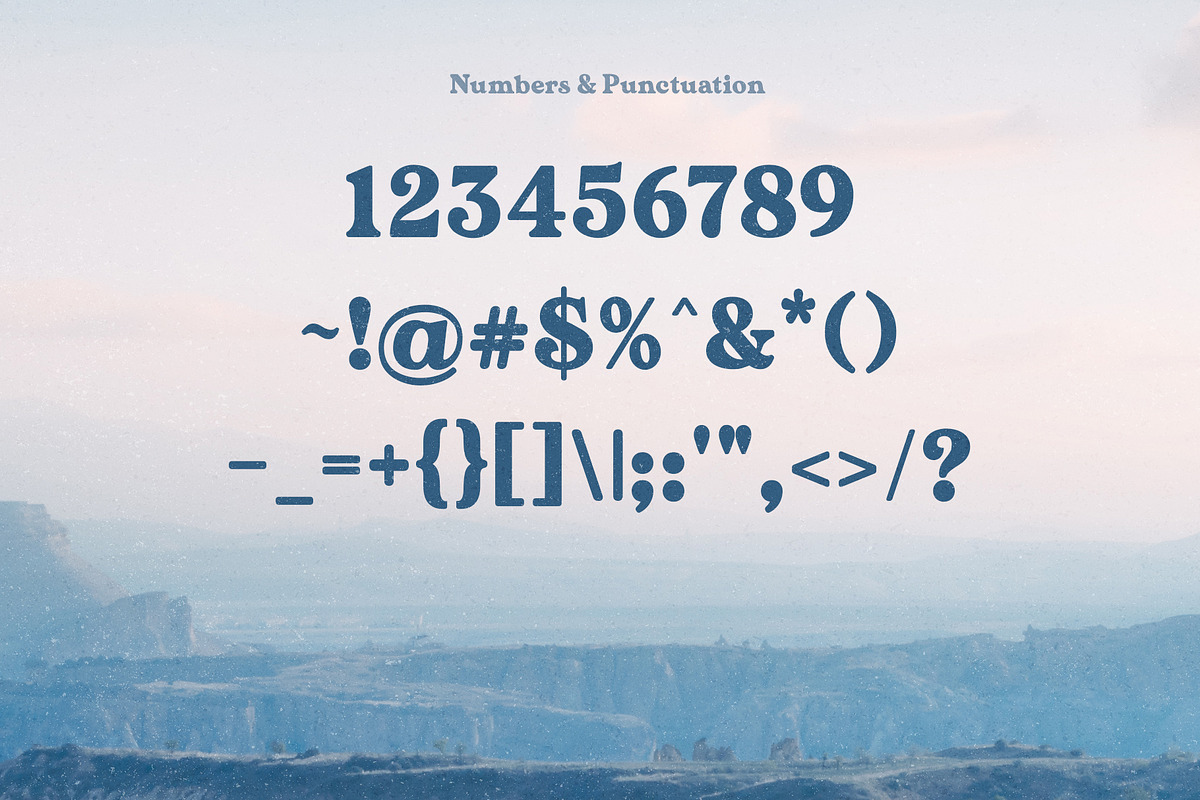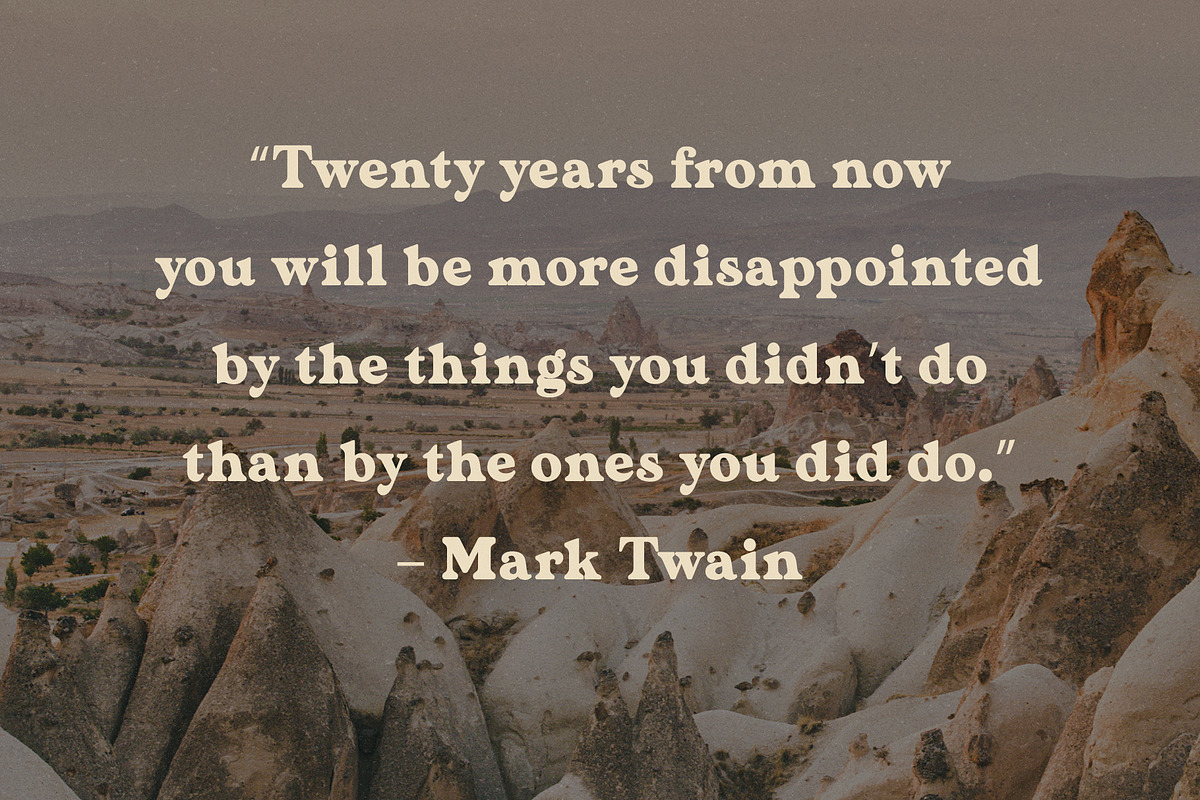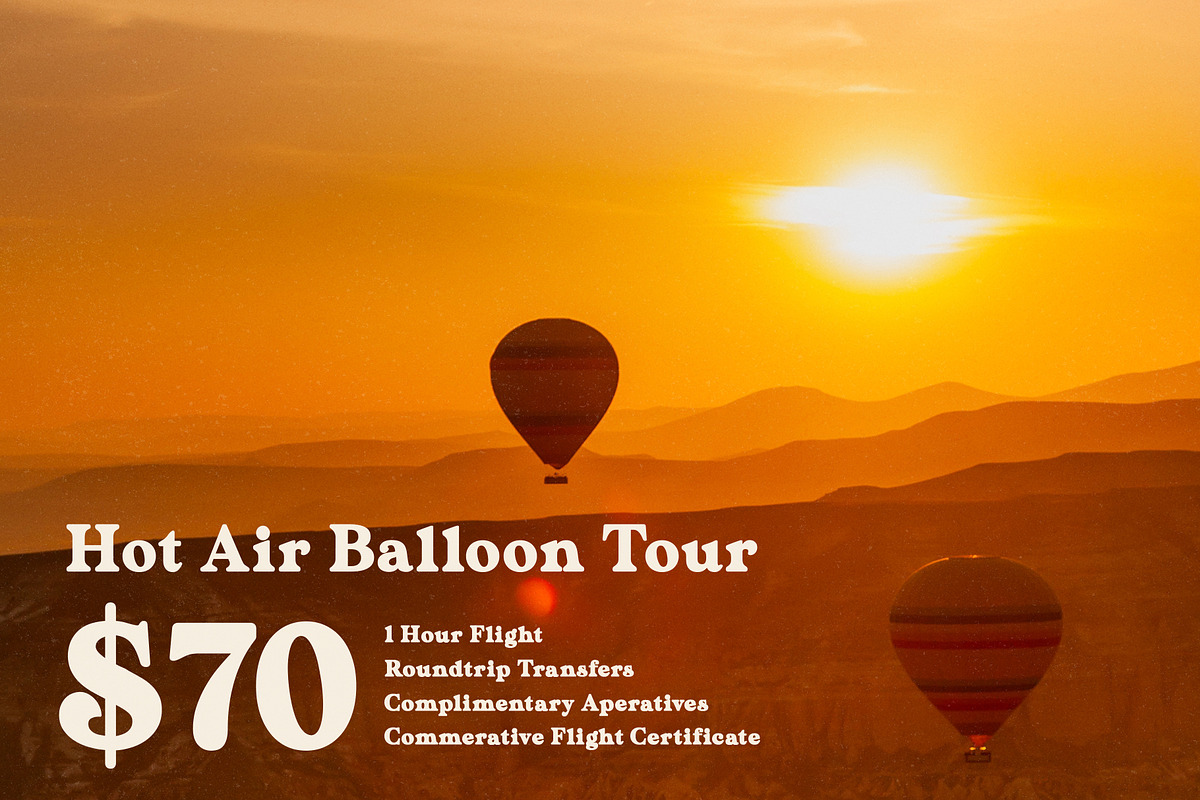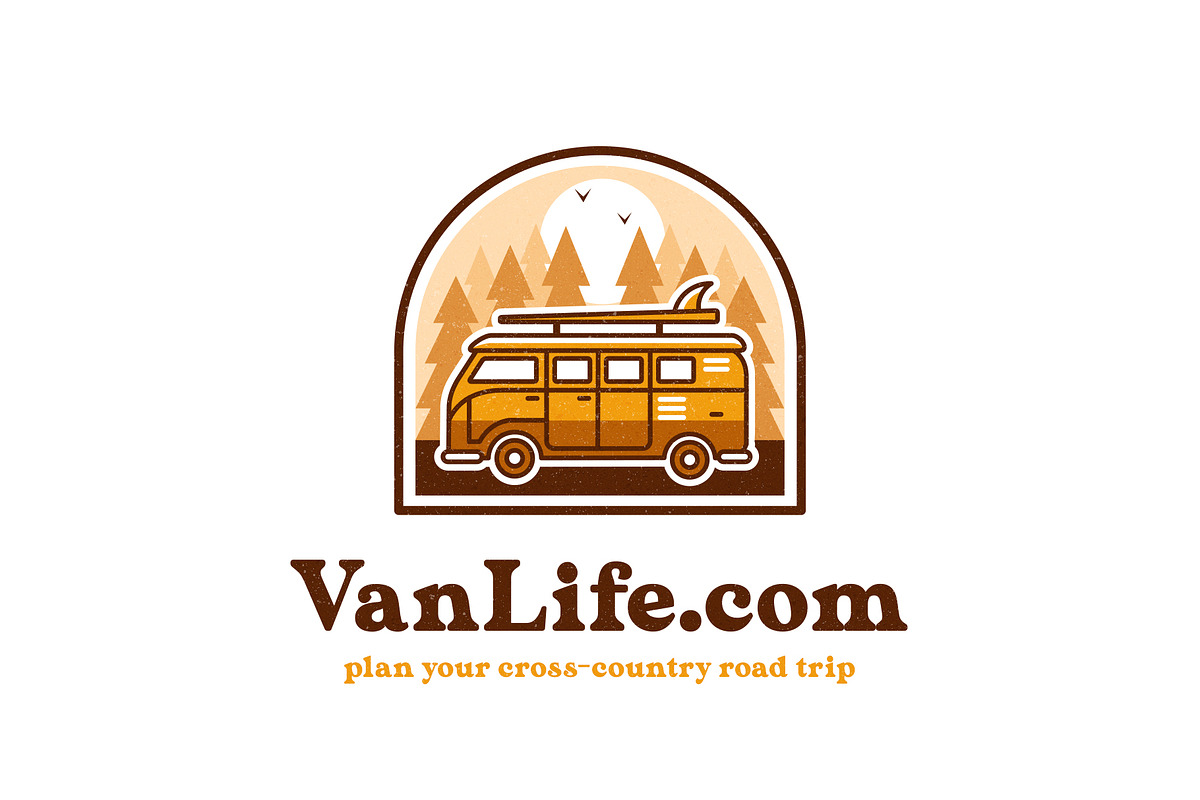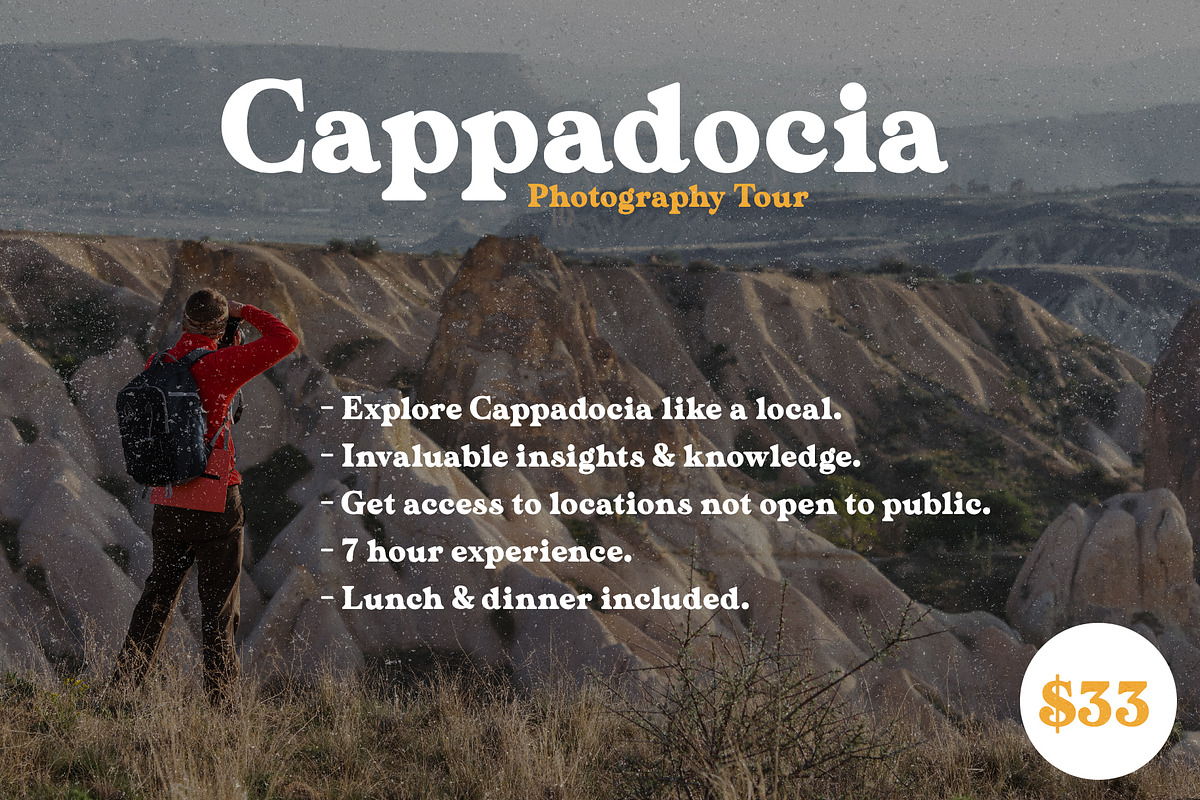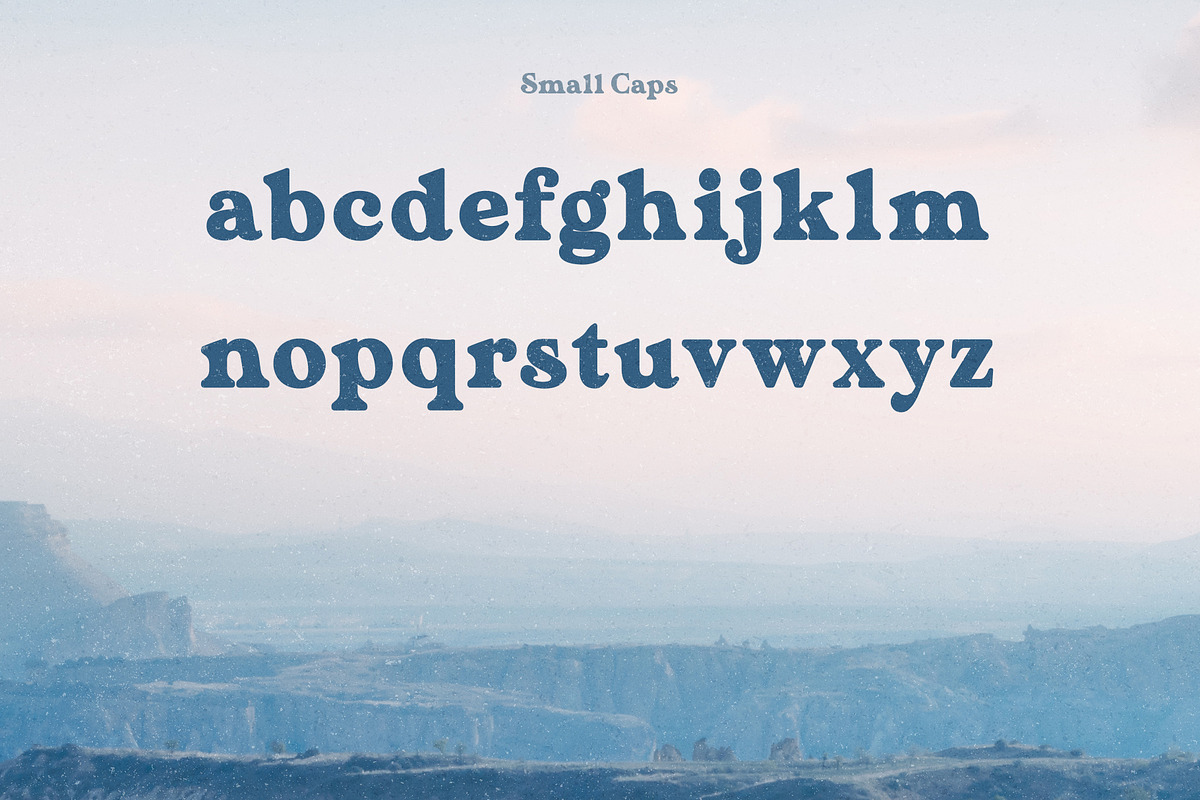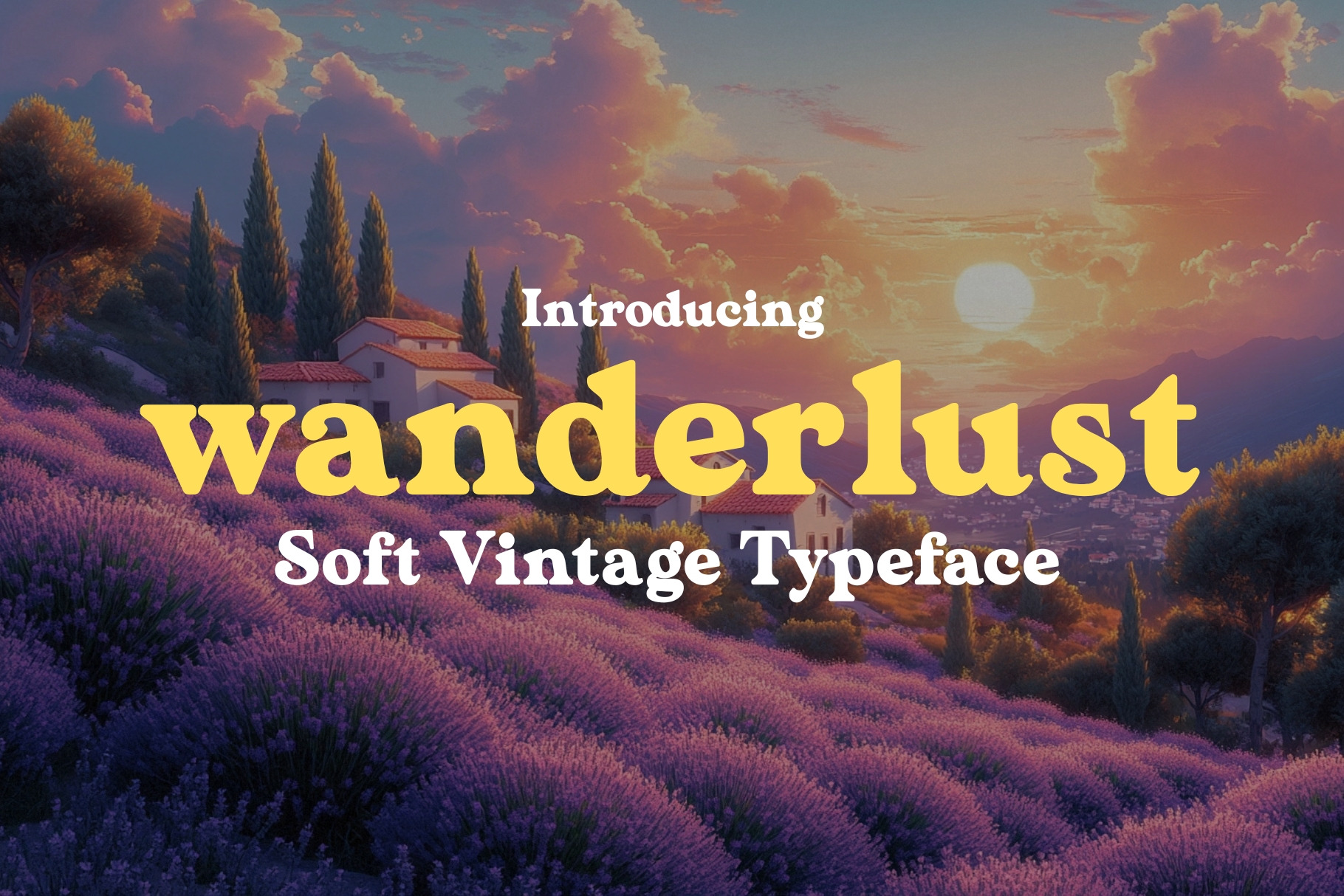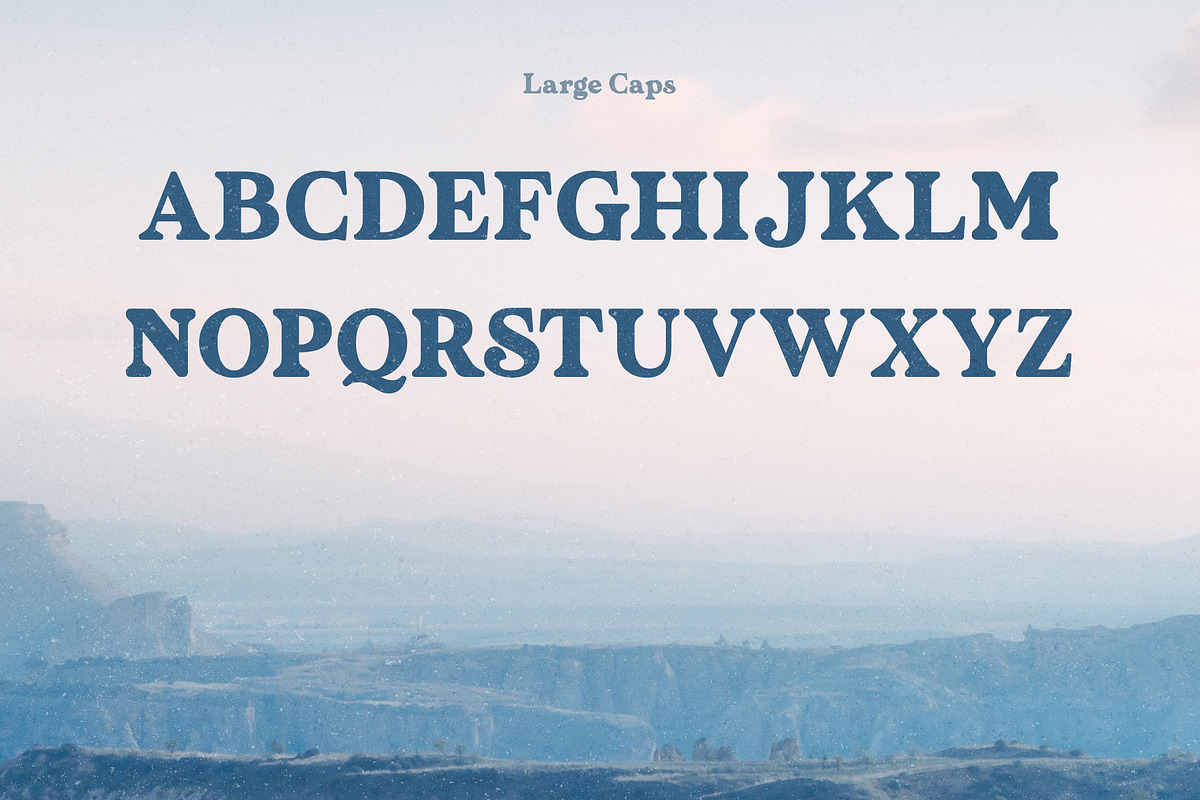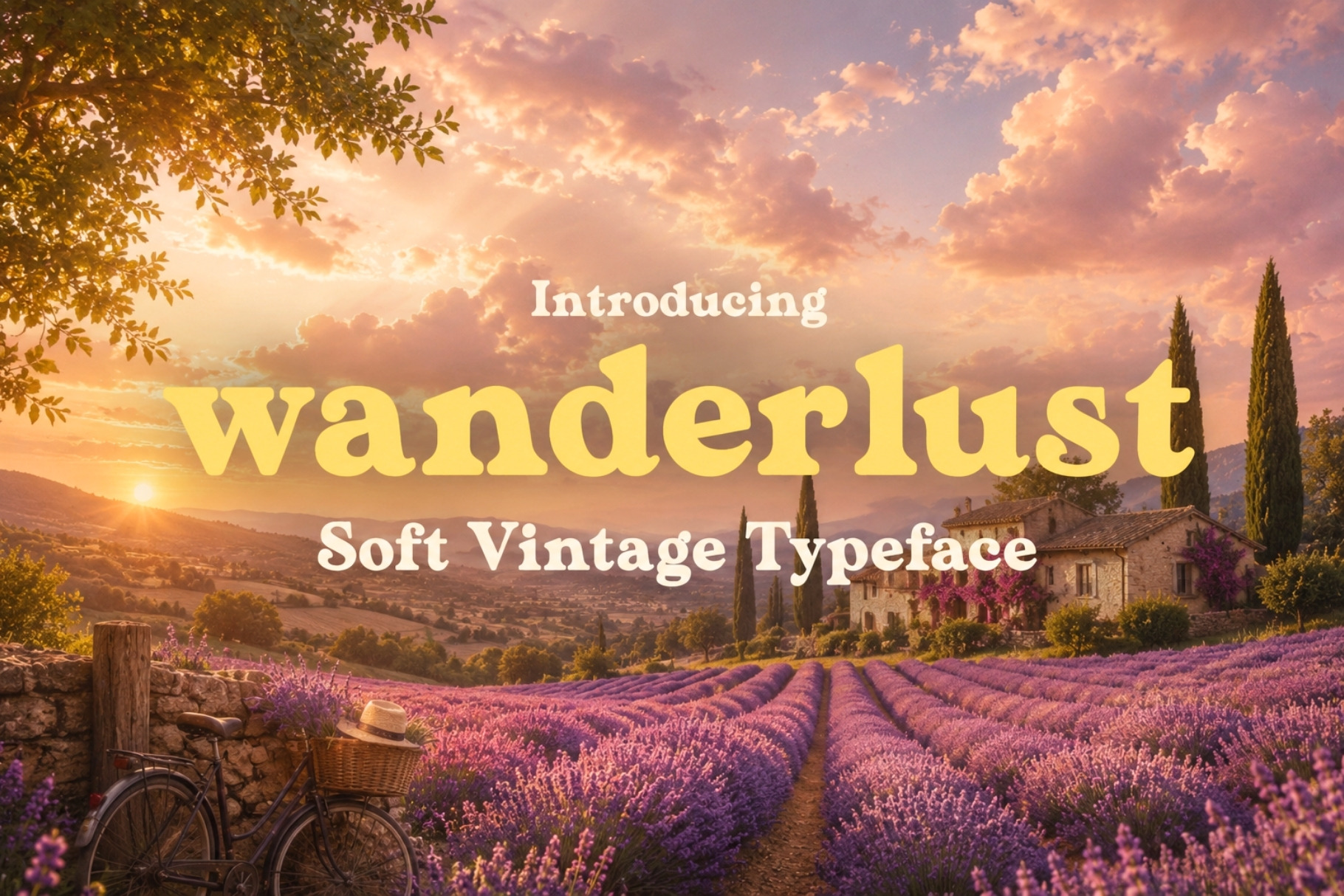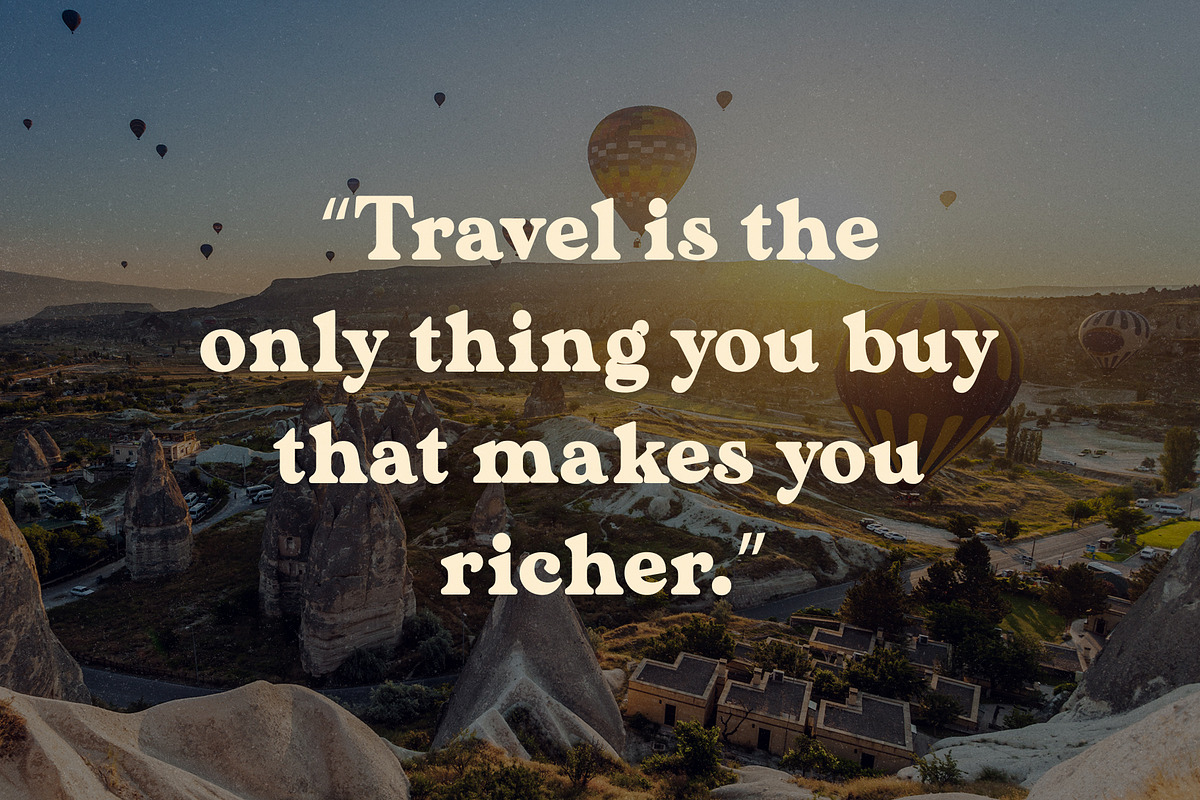
Wanderlust - Soft Vintage Typeface
Wanderlust is a soft, romantically vintage typeface that carries the timeless charm of handcrafted lettering and the effortless elegance of a bygone era. Every curve feels intentional, every letterform unhurried — the typographic equivalent of a perfectly worn leather journal or a sun-faded postcard from somewhere beautiful.
Remarkably versatile for a font with such a distinct character, Wanderlust moves gracefully across an unusually wide range of creative work — from the delicate refinement of wedding invitations and editorial spreads to the bold confidence of branding, packaging, and large-format poster design. It carries its vintage soul without feeling dated.
Whether you're designing something tender and intimate or striking and expressive, Wanderlust has the rare ability to feel completely at home in both worlds — and make your work feel like it was always meant to look exactly that way.